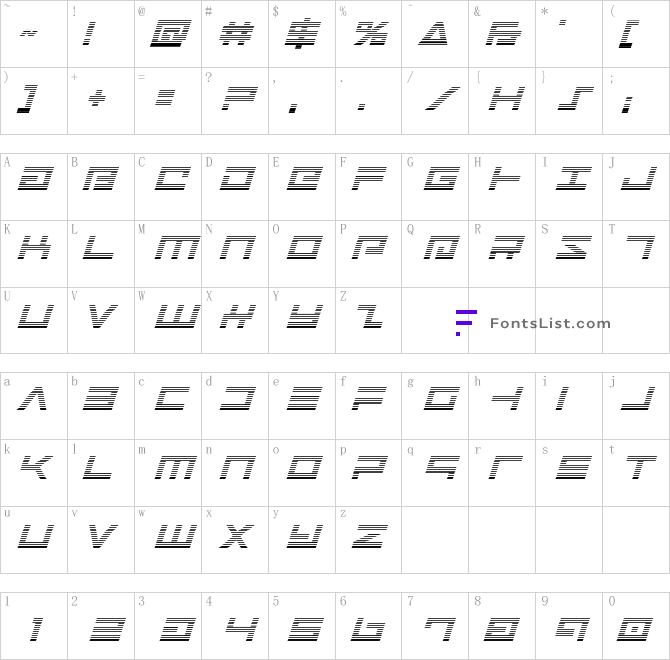
- Font Name:Avenger Gradient Italic
Avenger-Gradient-Italic.ttf is a very beautiful artistic font, Avenger-Gradient-Italic.ttf is widely used in the design and printing of various books and pictures,Avenger-Gradient-Italic.ttf has a strong visual impact,Avenger-Gradient-Italic.ttf is a commonly used font in newspapers, magazines and books, and is used in posters, e-commerce Poster design, store design, logo design, font design and other fields.Avenger-Gradient-Italic.